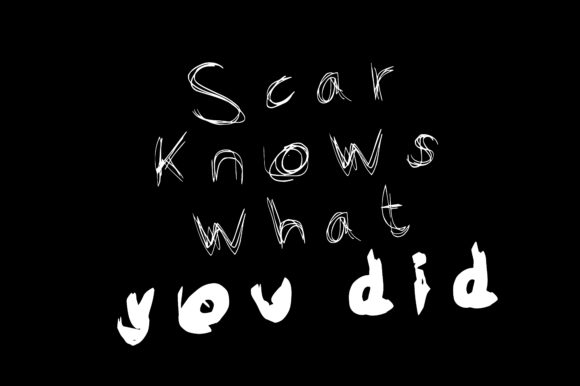
Introduction to Scar Font
Scary, angry looking, rough, etched styled scary hand drawn font great for Halloween.
Use with caution .
Key Features of Scar Font
Why Choose Scar Font?